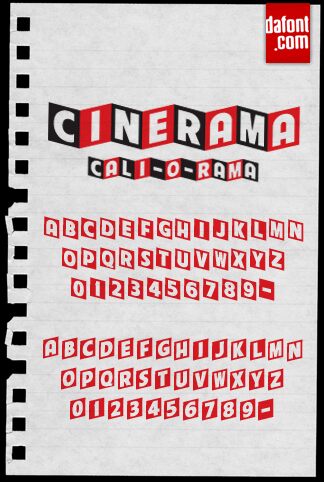
Cinerama by Florian Mihr is a free heavy sans serif designed for lively theatrical display and entertainment graphics. Tall capitals occupy sharply tilted panels, with uneven widths and clipped outer edges producing a brisk sequence of changing shapes.
The repeating panels suit cinema posters, festival graphics, and music packaging. Their shifting frames resemble a run of animated title cards, letting the lettering become a bold visual device for a venue, production company, or entertainment brand.
Cinerama